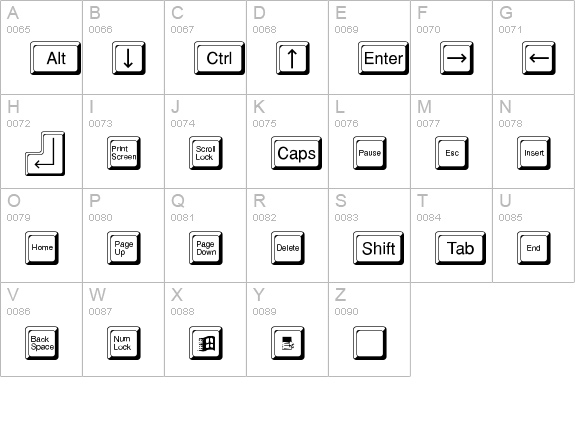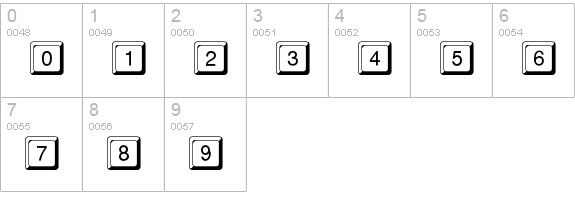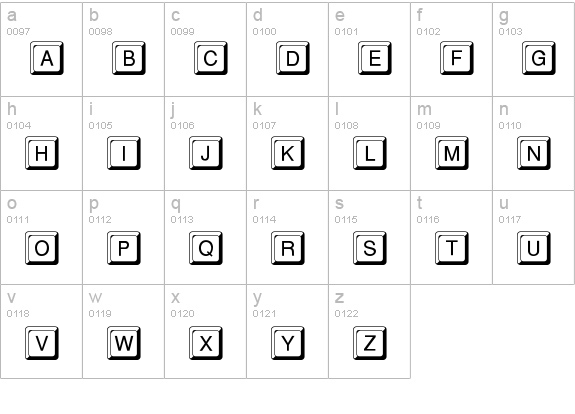
KeyPads Font Details
Introducing KeyPads font, a modern and versatile typeface that is bound to add a touch of sophistication to any design project. With its clean lines and sleek aesthetic, KeyPads font is perfect for creating eye-catching logos, engaging headlines, stylish posters, and much more. This font is not only visually appealing, but it also offers incredible versatility. Whether you're designing for a corporate brand, a fashion label, or a tech startup, KeyPads font can effortlessly adapt to your needs. Its sleek and modern design allows it to communicate professionalism, while its unique elements give it a touch of creativity and originality. What's even better is that KeyPads font is available for free download at FontsMarket.com. That's right, you can easily access this stunning font without any cost. This makes it an excellent choice for designers on a budget or anyone looking to enhance their creative projects without breaking the bank. Downloading KeyPads font from FontsMarket.com is a breeze. Simply visit the website, locate the font, and within a few clicks, it will be ready to use in your designs. With its easy accessibility, you can start incorporating KeyPads font into your projects right away. So why wait? Elevate your designs with the elegance and versatility of KeyPads font. Download it for free at FontsMarket.com and let your creativity soar. Whether you're designing for print or digital mediums, KeyPads font is sure to make a lasting impression.